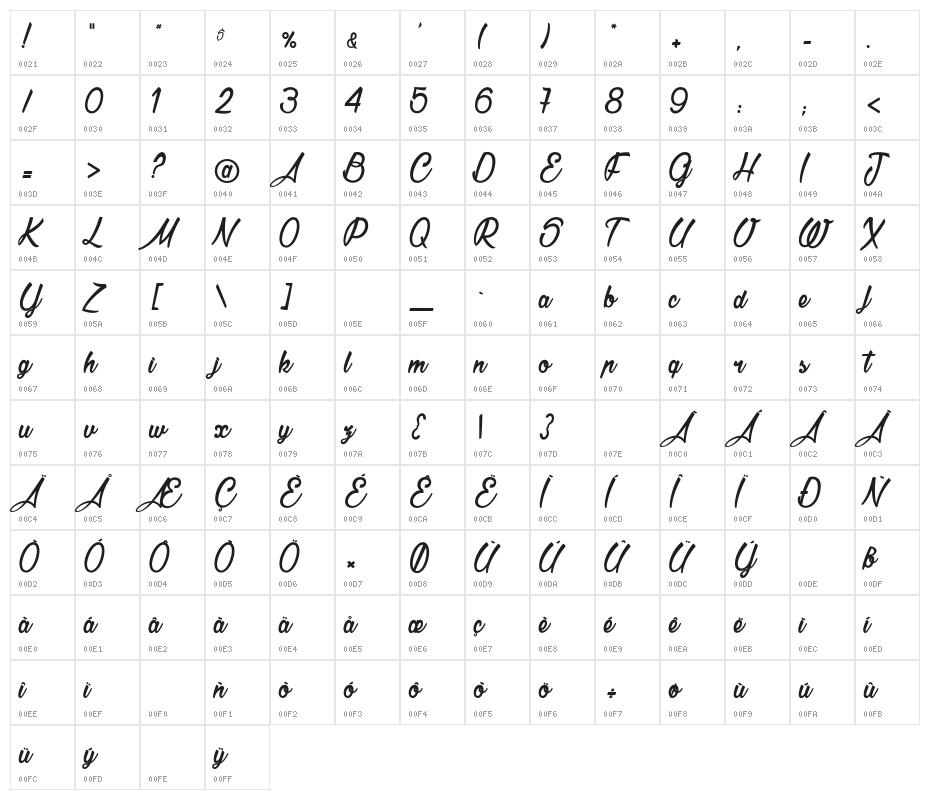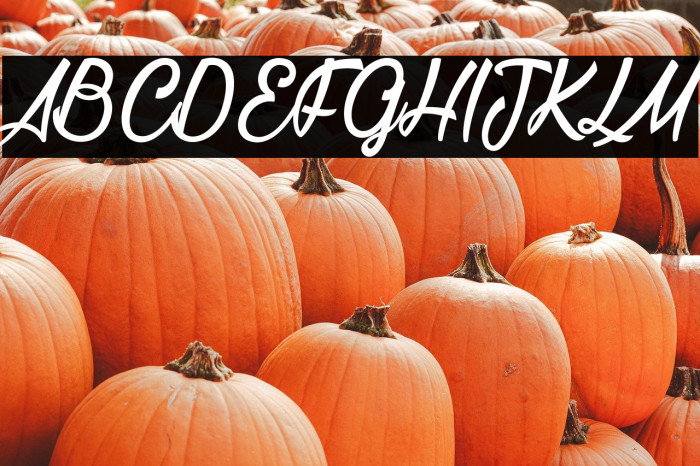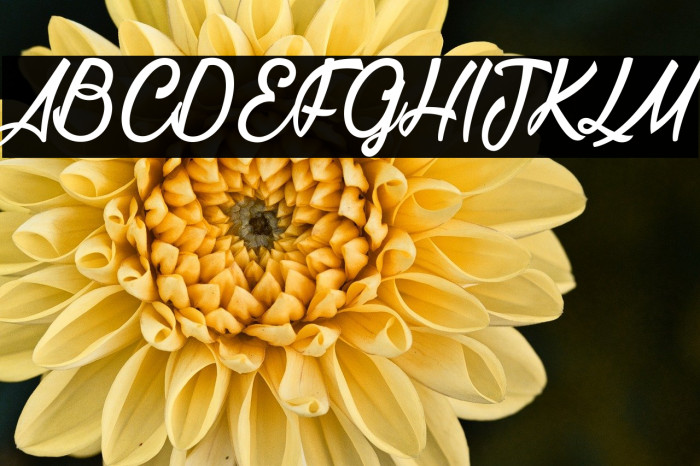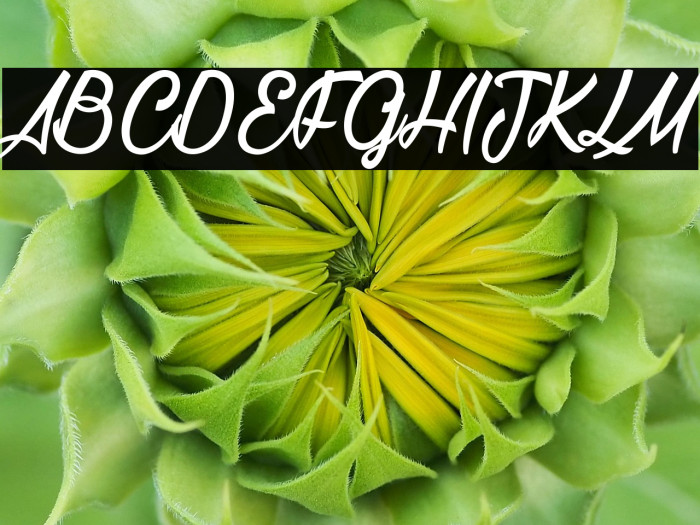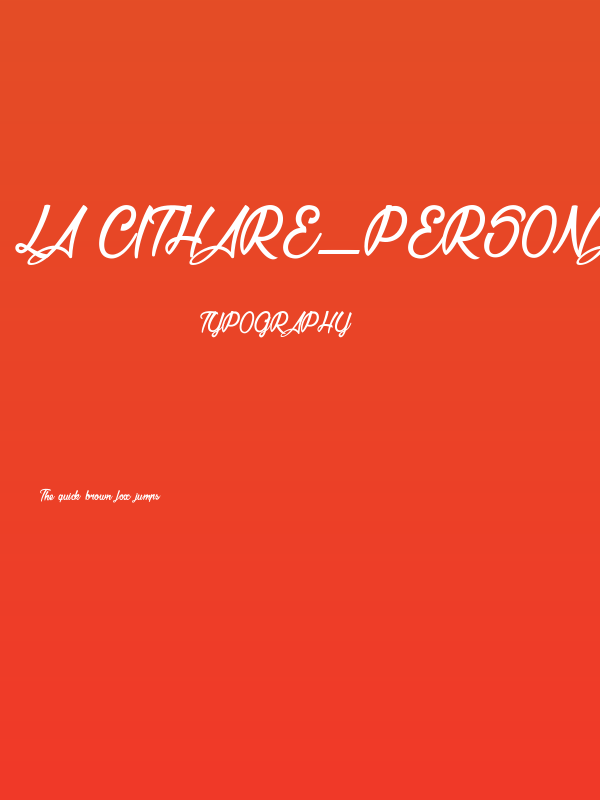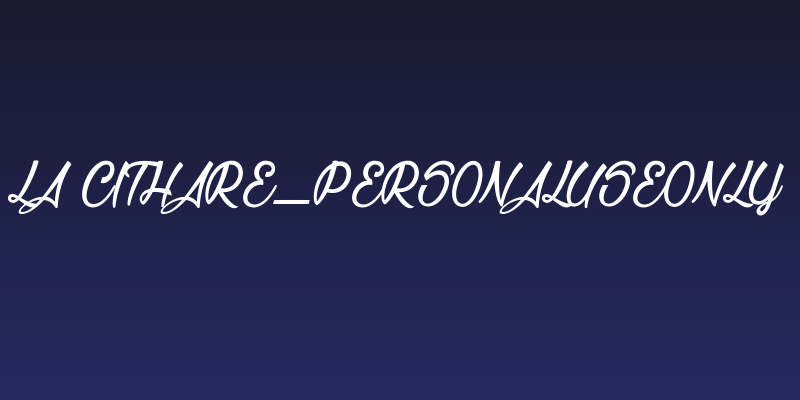
La Cithare_PersonalUseOnly Font
| Gesamtstil | Elegant, Decorative |
| Anwendungsfall | Headlines, Logos, Invitations |
| Vorgeschlagene Projekte | Ideal for wedding invitations, personal branding, greeting cards, and decorative signage. |